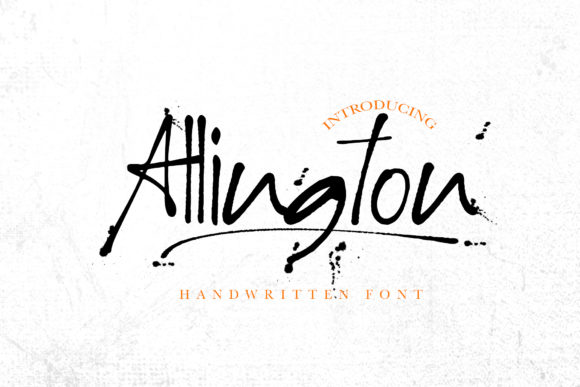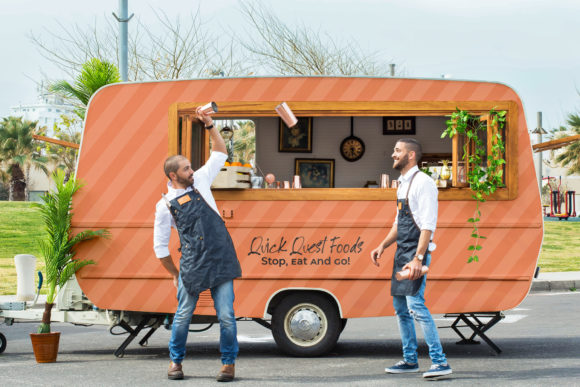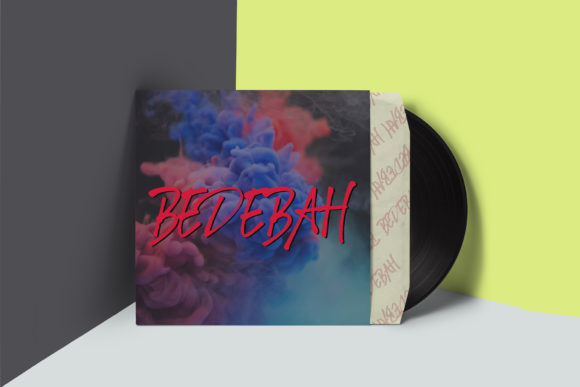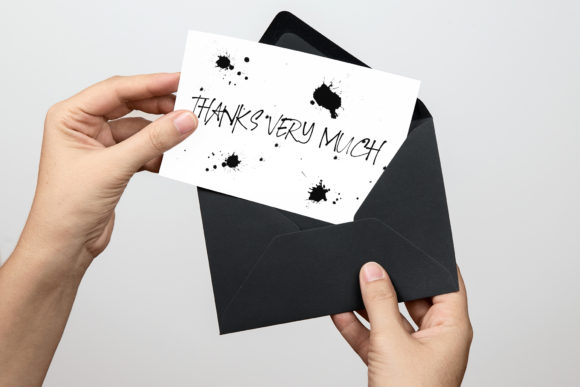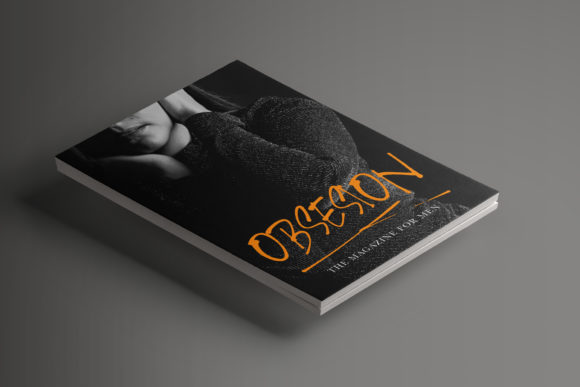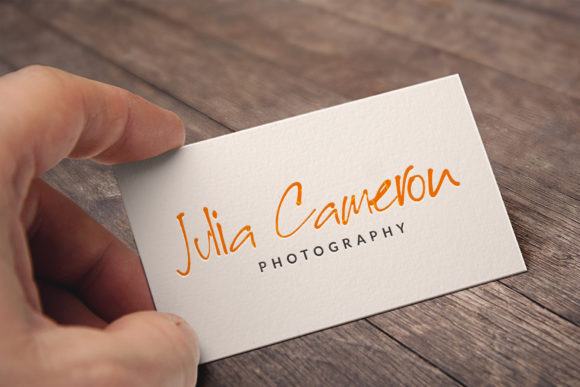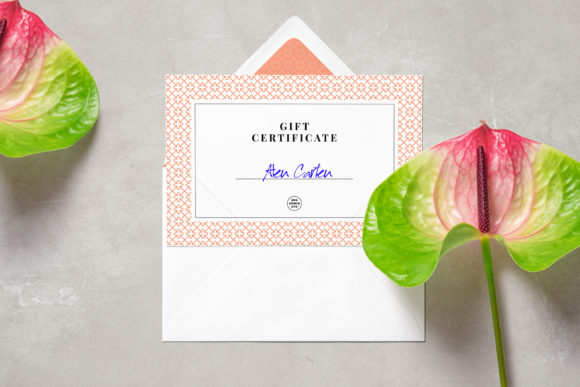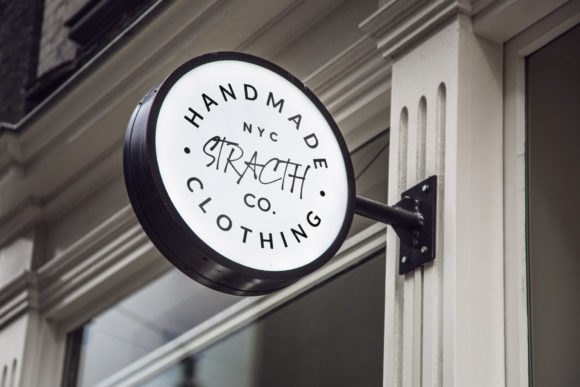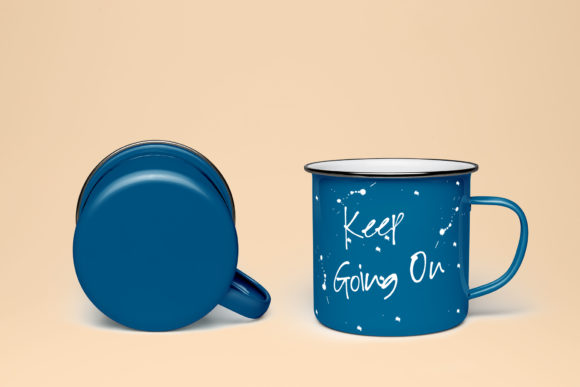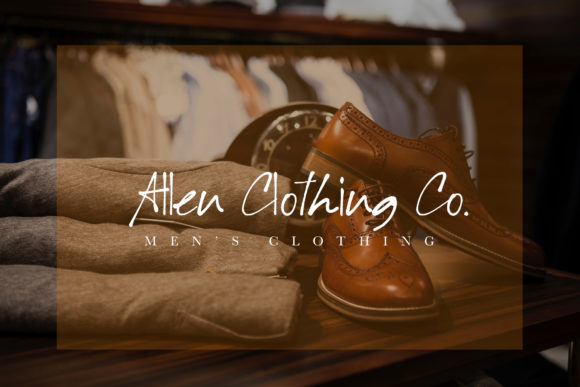
HomeScript FontsAllington Font Script Fonts Allington Font FacebookXPinterestWhatsApp Allington Font Poster 2 Allington Font Poster 3 Allington Font Poster 4 Allington Font Poster 5 Allington Font Poster 6 Allington Font Poster 7 Allington Font Poster 8 Allington Font Poster 9 Allington Font Poster 10 Allington Font Poster 11 Allington Font Poster 12 About Allington Font Allington is a stunning font with an incredibly charming feel. Fall in love with its authentic vibe! DOWNLOAD ON CREATIVE FABRICAThis font is sold and delivered by Creative Fabrica. Font Canyon may earn a commission if you buy through this link. People also explored Laughfess Font Stay Alone Font Brainlysign Font Fasten Font Bunny Flowers Monogram Font Ready Font The Scarface Font Mouribele Amsterdam Font 474 0 TagsAllington Font Previous articleKids Park FontNext articleBrighnesy Font LEAVE A REPLY Cancel reply Comment: Please enter your comment! Name:* Please enter your name here Email:* You have entered an incorrect email address! Please enter your email address here Website: Save my name, email, and website in this browser for the next time I comment. Personal Use Free Strings Personal Use Free Read more about this font Adeline Personal Use Free Read more about this font Open Store Personal Use Free Read more about this font Satori Personal Use Free Read more about this font BLOG To increase your work productivity, choose the most readable fonts. In today's fast-paced work environment, where digital communication and information consumption are integral to our daily routines, the choice of fonts can significantly impact... How to Install and Use Fonts on Windows, macOS, and Web Projects Where to Buy American Fonts Online in 2024 How to Cut Any Font on Cricut: Convert a Font to SVG (Free)